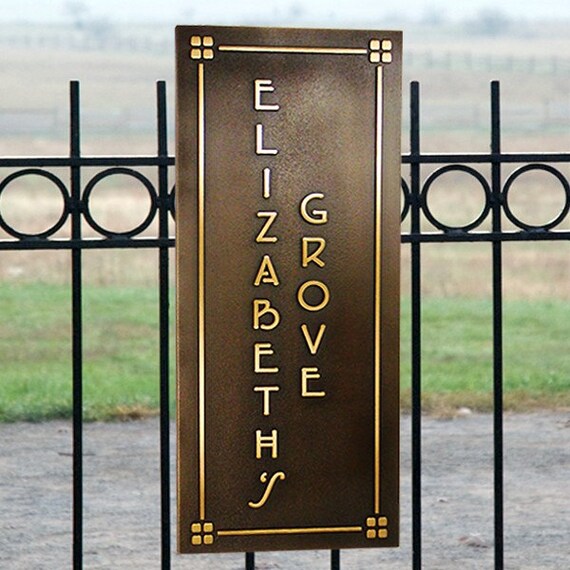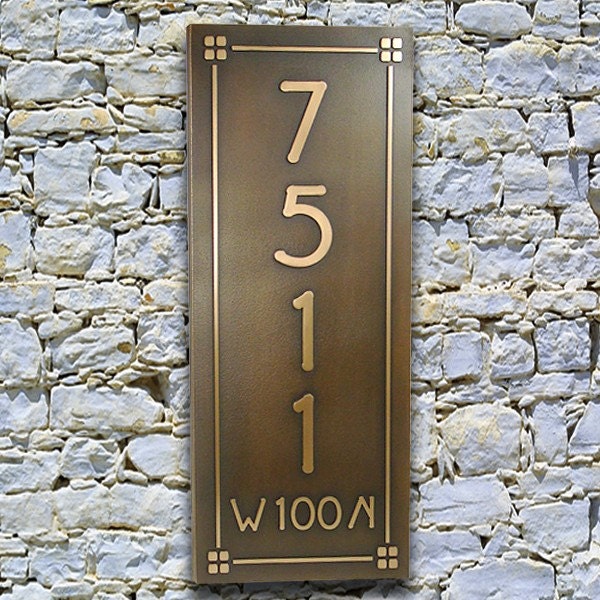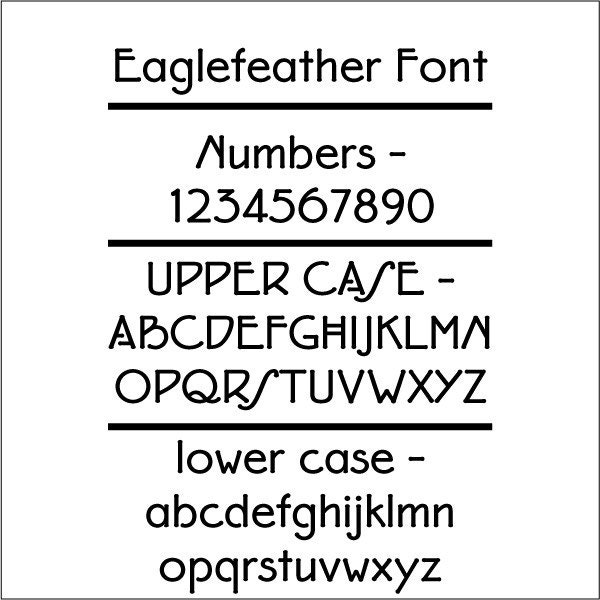
Eaglefeather FLW Font Plaque Name and Address Home Sign 10x24 inches Vertical
The Master, Frank Lloyd Wright, designed the Eaglerock project in the 1920s. Although the California house for Charles P. Lowe was never started, the lettering for the venture became the Eaglefeather font.
Our Eaglefeather Plaque revolves around this terrific Arts and Crafts font. It really epitomizes Wright's break from the California Colonial Style and his use of simple construction materials. This could be the perfect way to showcase your entrance. Of course, with our method, we can design your "Private Drive", "No Soliciting" "No Trespassing" and "Deliveries" Signs to match, bringing architectural continuity to your property.